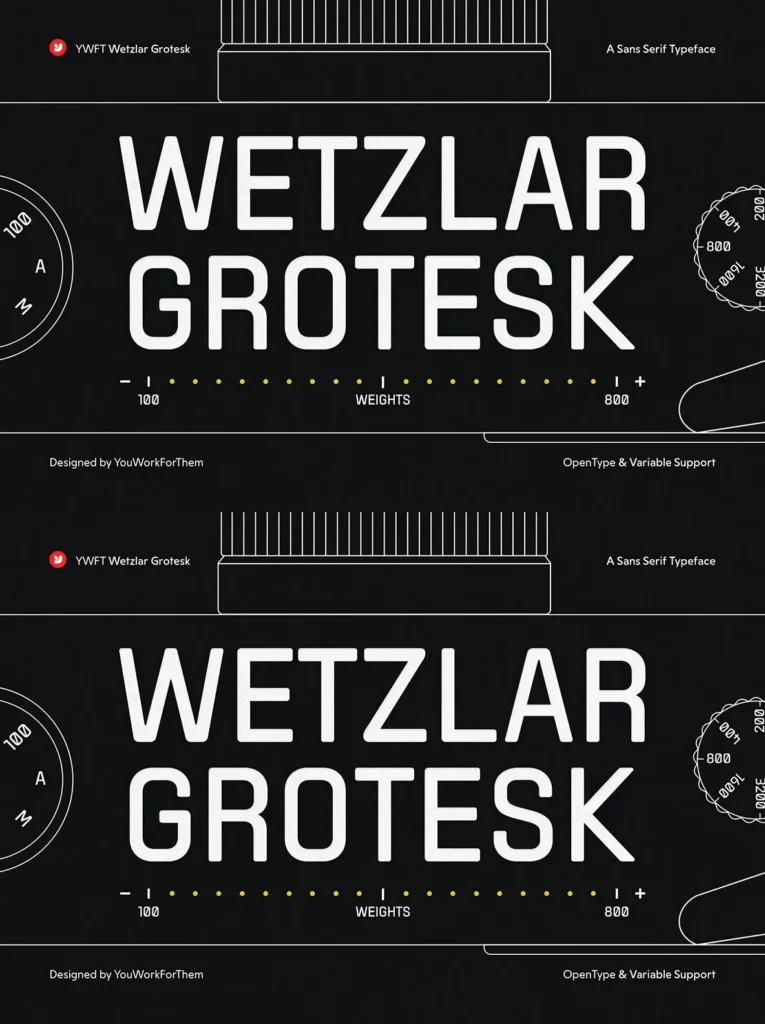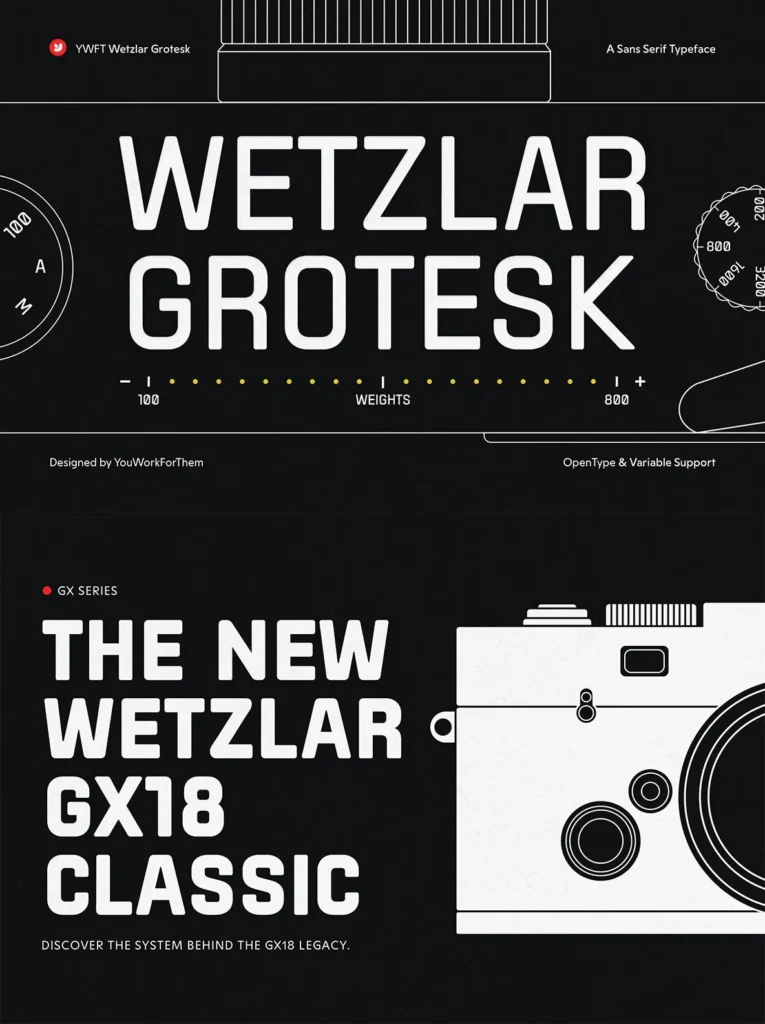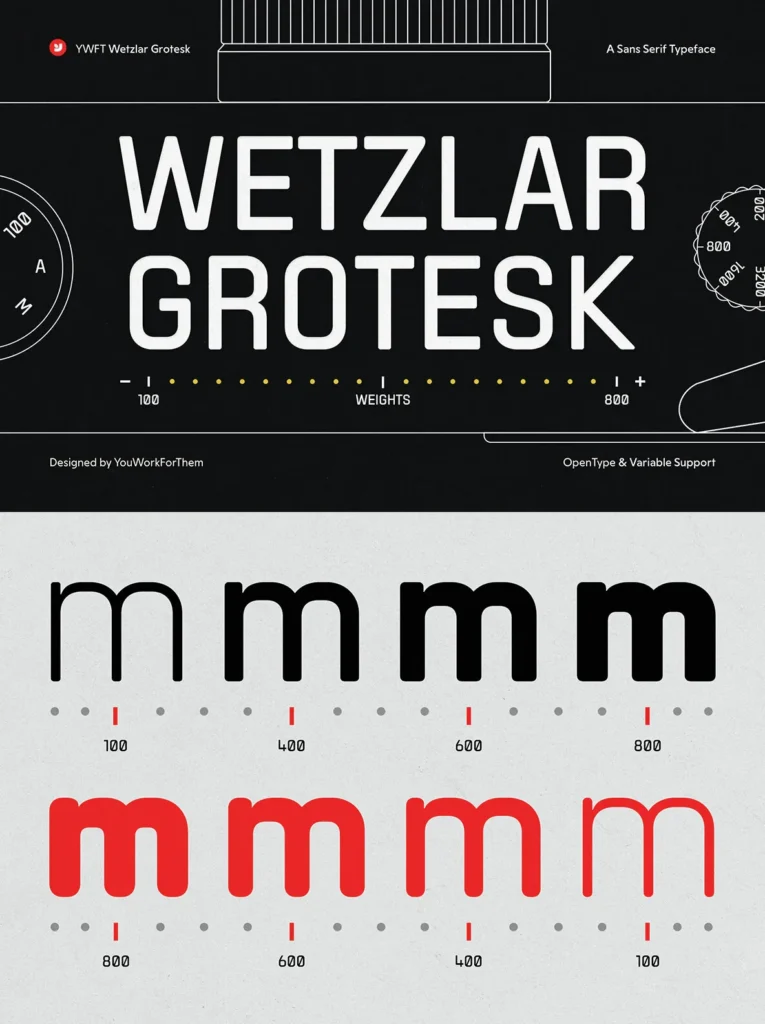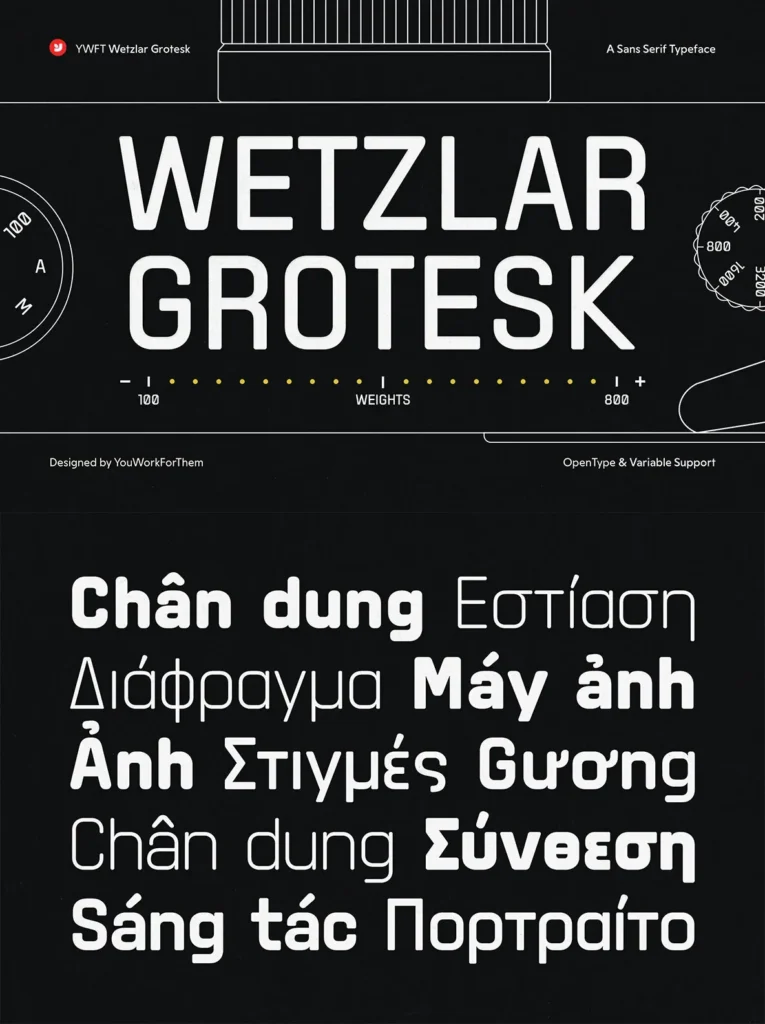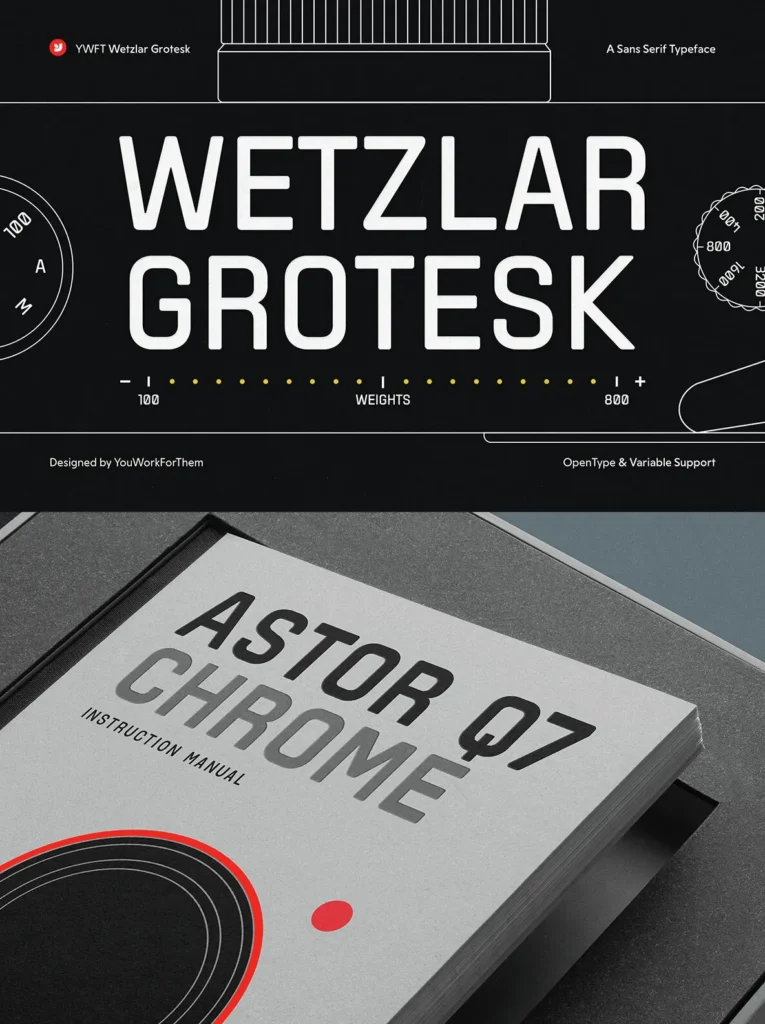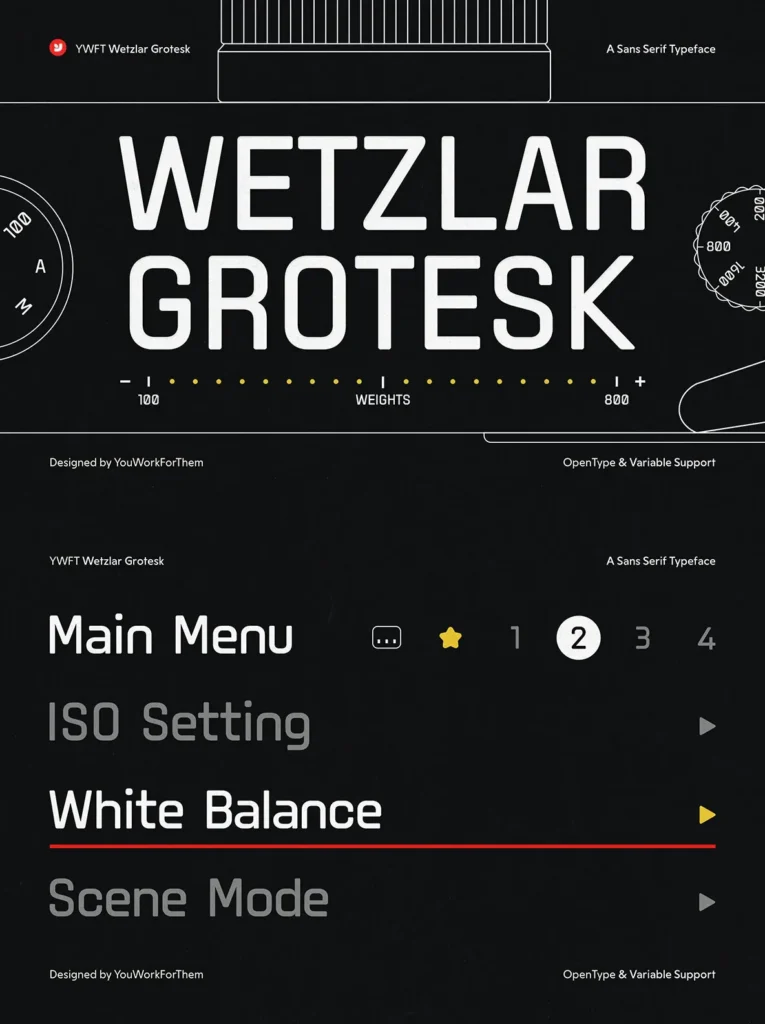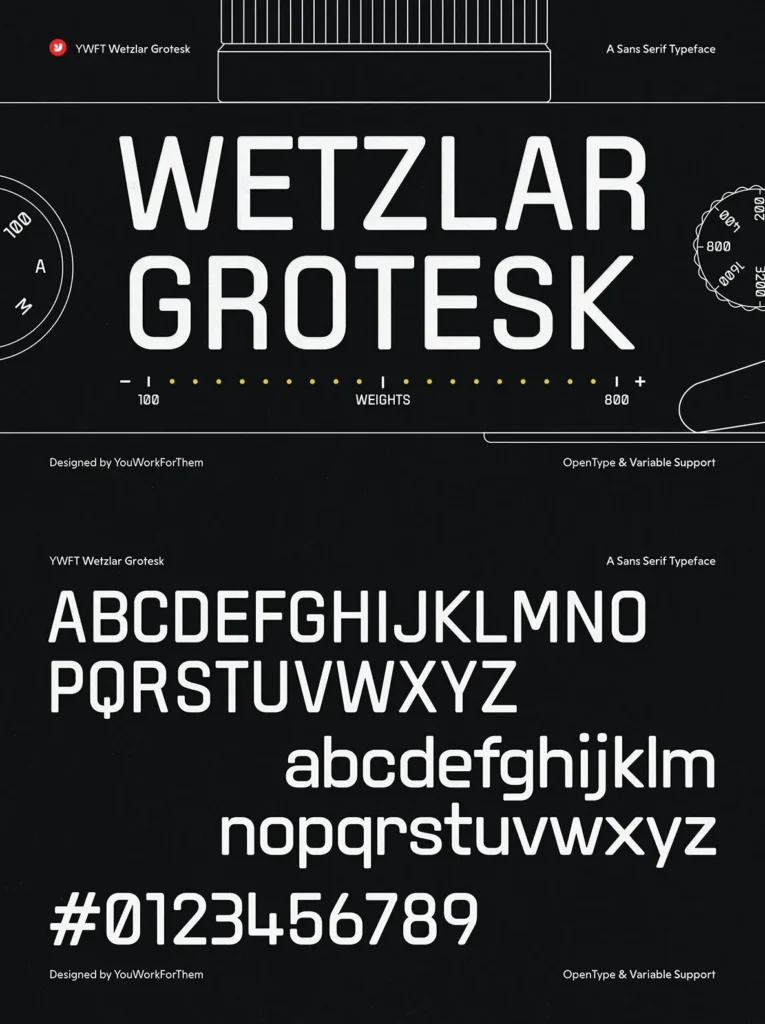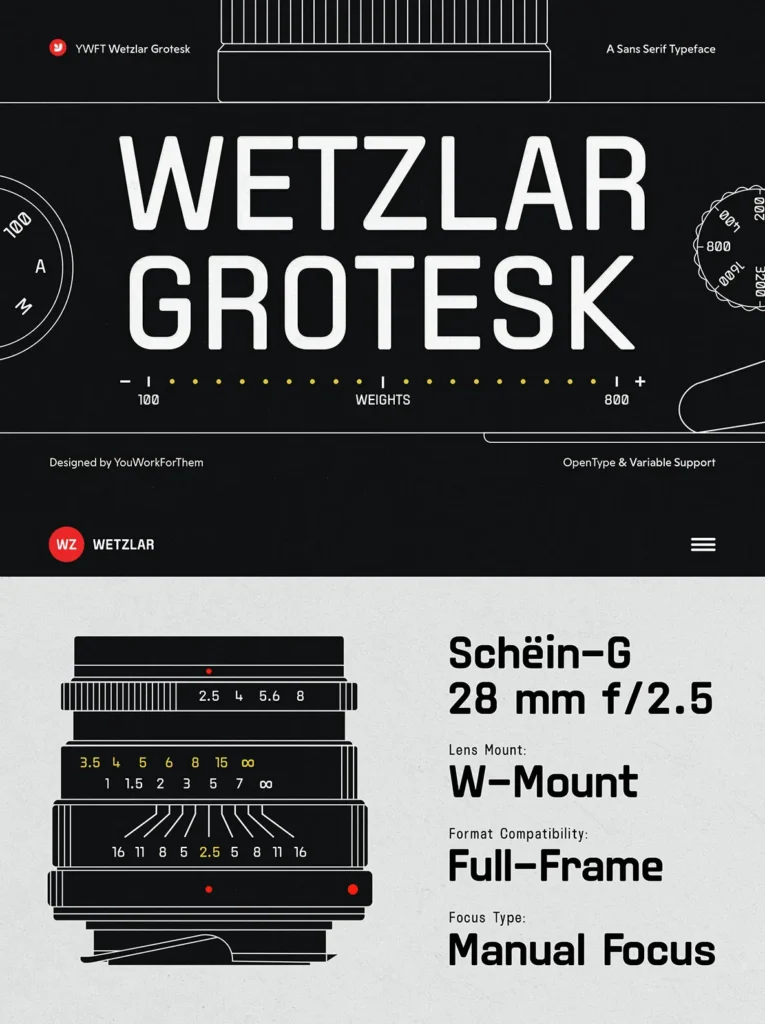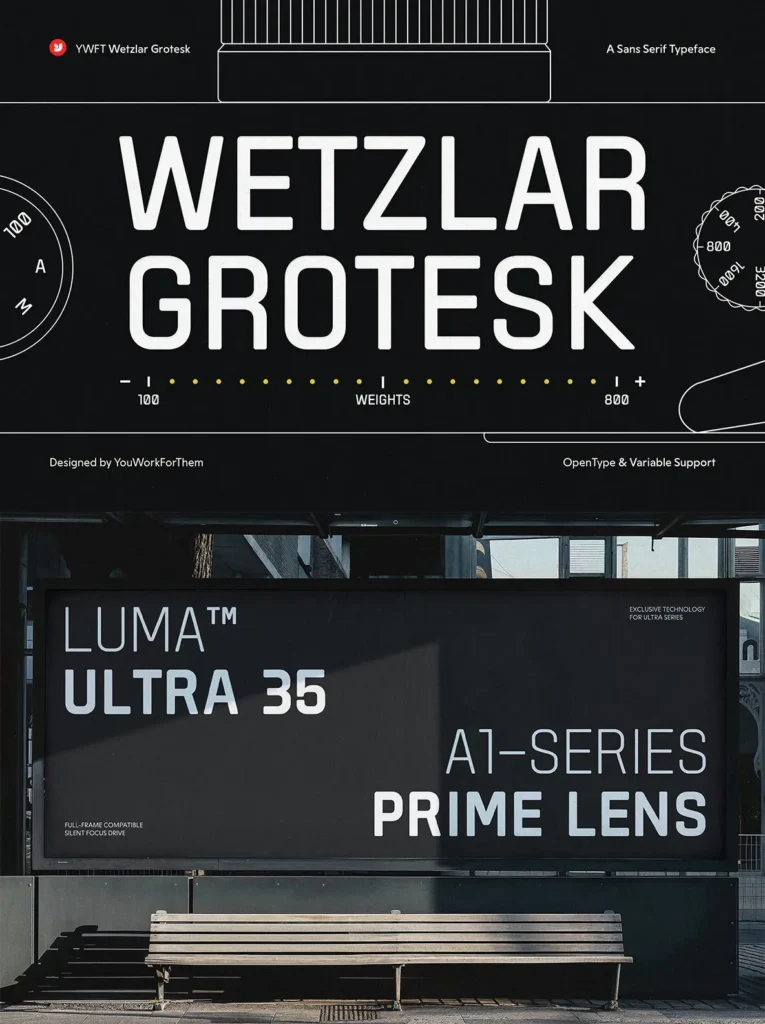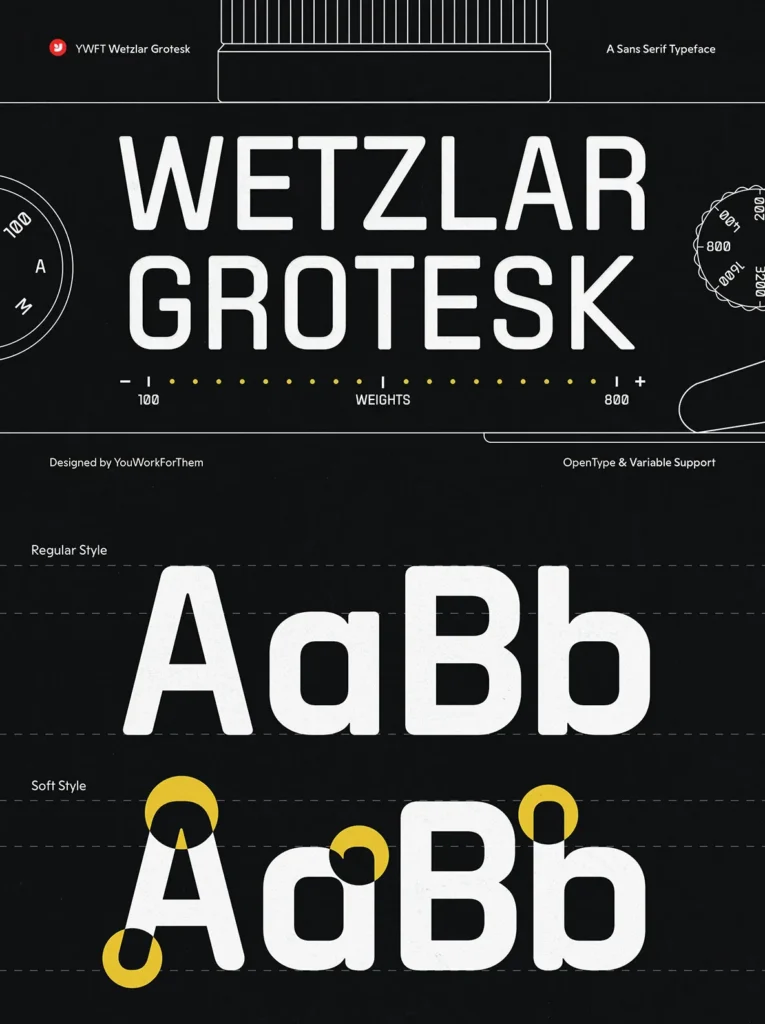
Wetzler Grotesque: Inspired by Precision Optics, Built for the Digital World
Wetzler Grotesque is a modern typeface inspired by the clean logic of mid-century German industrial design. While alluding to the precision of a renowned photography equipment brand, Wetzler Grotesque establishes its own identity as a utilitarian sans-serif tailored for contemporary digital screens and designs. Lanched in 2025, this modern font embodies a fresh approach rooted in modern design principles.
Designed with Purpose
The font draws inspiration from the compact, engraved lettering typical of high-end optical and mechanical devices. Its exacting curves and substantial presence infuse projects with a mechanical yet approachable quality, making it ideal for branding, video games, web design layouts, and interface design.
Built for Versatility
The typeface family includes Light, Regular, Bold, and Black weights, each available with an optional Soft style. This dual flexibility enhances legibility at smaller sizes and offers warmth, making it perfect for print and digital applications.
Font Features:
Character Set:
Supports over 620 languages, including Basic Latin, Greek, Western and Central European, Vietnamese, and Pan-African Latin scripts.
OpenType Features:
Offers Stylistic Alternates, Ligatures, Case Sensitive Forms, Ordinals, Superscripts, and multiple Stylistic Sets.
Variable Option:
Also available as a variable font, offering responsive weight control and efficient performance across digital platforms.
A Digital-First Typeface